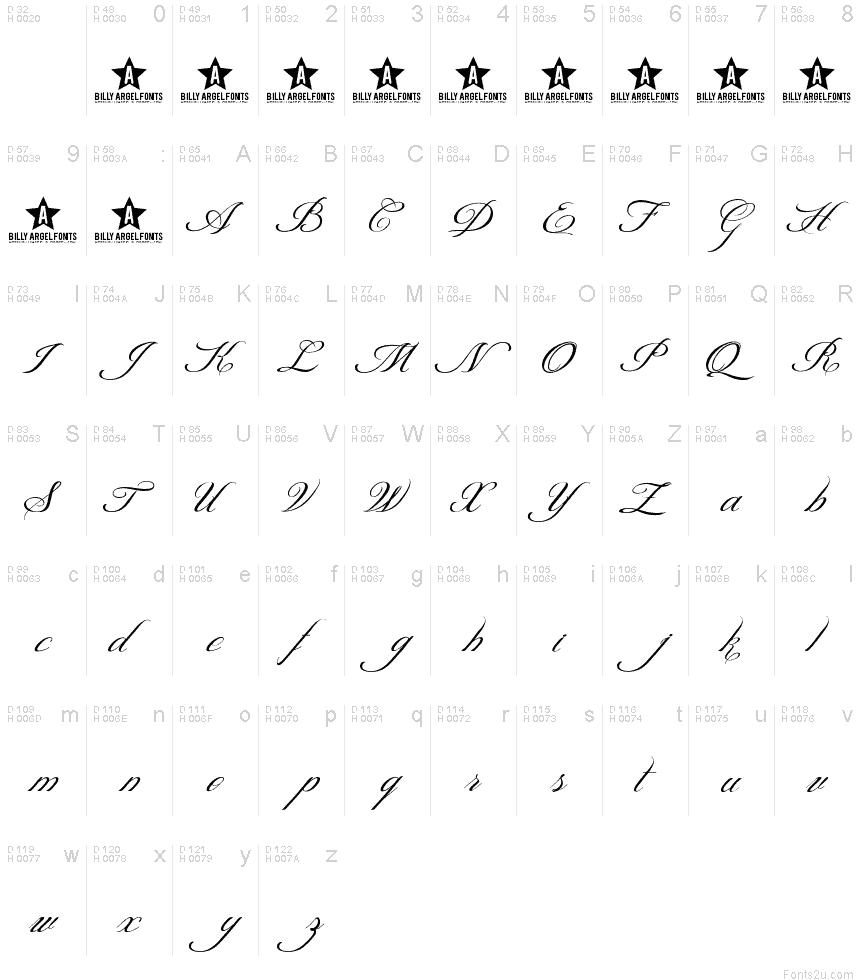
Font Names Cursive. Practice writing in cursive with the d`nealian font with simple doodle borders. Nicknames, cool fonts, symbols and tags for cursive.
Looking for cursive signature fonts? It is charming and elegant, and will inspire any design ideas that need that special touch. Practice writing in cursive with the d`nealian font with simple doodle borders.
There is no app (at least in our knowledge) with an inbuilt text formatting option to change the fonts to look like cursive fonts. Here are some great places to use cursive text from our cursive text generator: A unique feature of this font is that many capital letters will join when preceding lower case letters, which will create much more real flow.
It will disrupt the natural script writing look and feel of the font which can potentially disturb your design. Bohema spirit is a beautiful and bold font with a unique feel and amazing elements. Cursive fonts in microsoft word
Cursive font names in word. Of course you can always add a font to an application like ms word. Adding spaces in between cursive letters makes it look awkward and just not nice.
Fancier Script Is A Very Artistic And Attractive Cursive Font Style Inspired From.